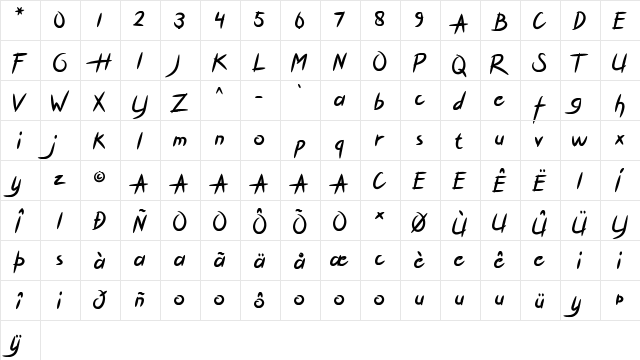
HOLIDAYROUGH LICENSE Regular
| Foundry | Graphix Line Studio |
| Designer | Ipung |
Design Context for HOLIDAYROUGH LICENSE Typeface
HOLIDAYROUGH LICENSE embraces imperfection — its rough, textured character adds raw authenticity to designs that want to feel lived-in and unconventional.
A strong fit for alternative music projects, graffiti-adjacent design, and anything that deliberately resists polish.
Pro Tip: Use HOLIDAYROUGH LICENSE at larger sizes where the texture and irregularity of each letterform can be clearly seen — it loses its character at small sizes.